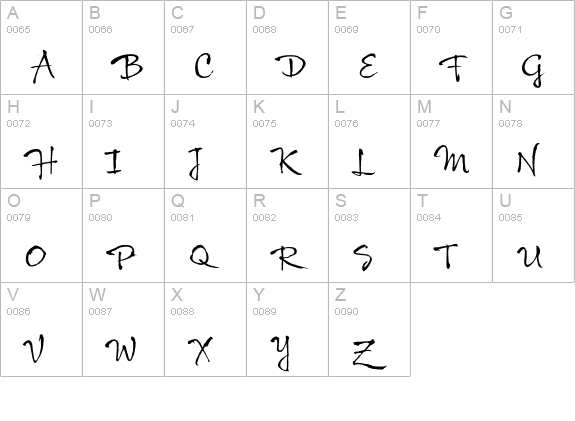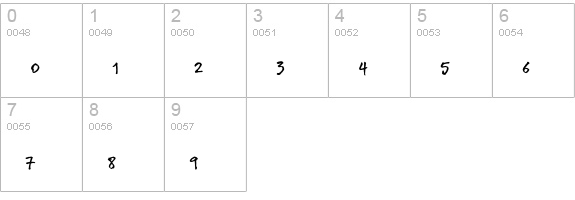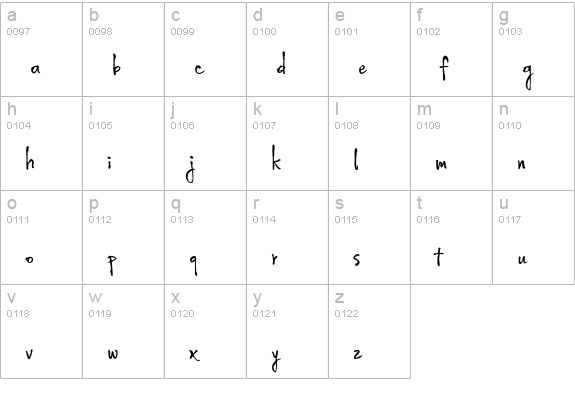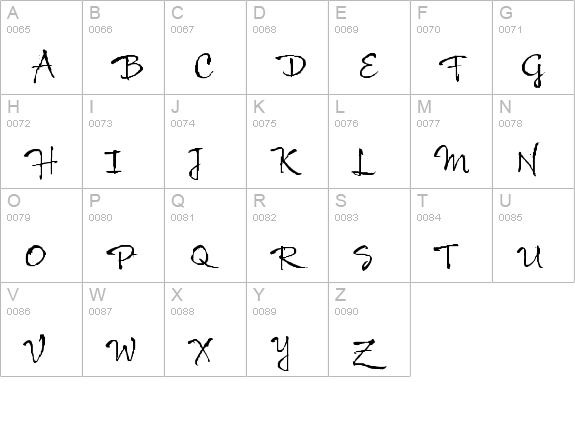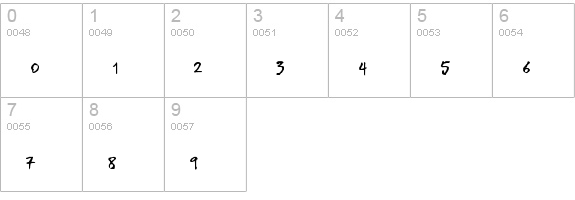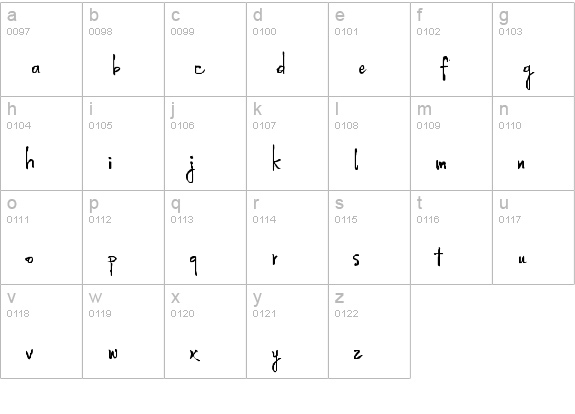
Wild Pen 3 Font Details
Wild Pen 3 font is a stunning and dynamic typeface that captures the essence of untamed creativity and free-spirited expression. Its bold strokes and energetic curves exude a sense of wild abandon, making it perfect for projects that demand a touch of daring and originality. This font is not just visually striking, but also incredibly versatile, suitable for a wide range of design applications including posters, logos, branding, and more. Whether you're looking to make a bold statement or add a playful touch to your designs, Wild Pen 3 font is sure to leave a lasting impression. Best of all, Wild Pen 3 font is freely available to download at FontsMarket.com, allowing you to unleash your creativity without any cost barriers. So go ahead, embrace the wild side of design with Wild Pen 3 font and let your imagination run free!